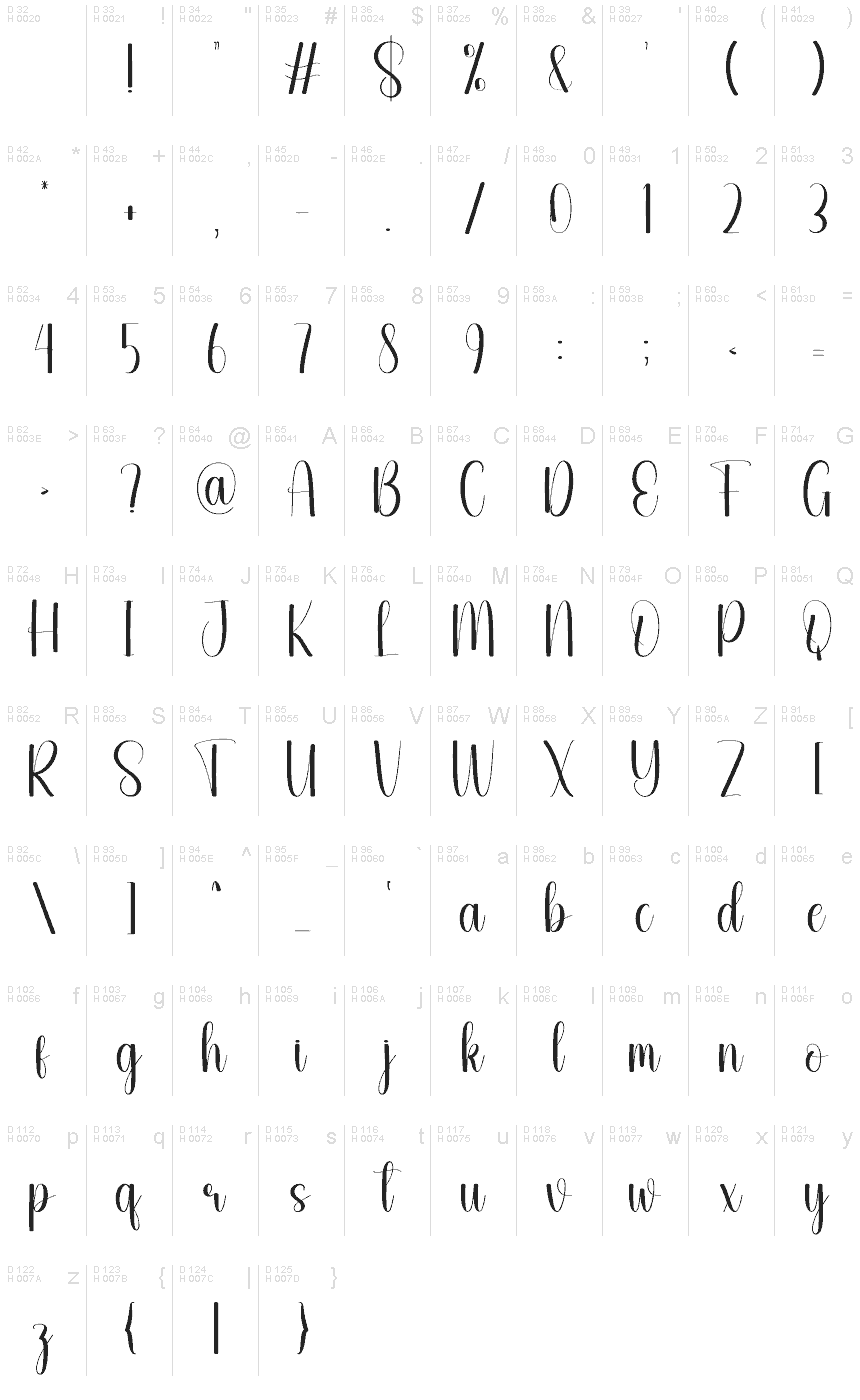
Hairdye
Hairdye font by Andi Moz is a free calligraphy font that combines elegant, flowing, and expressive handwritten elements. Its modern script design with graceful curves creates a sophisticated vibe suitable for various creative projects where elegance and class are desired.
This beautiful product can prove useful in wedding invitations, greeting cards, branding and packaging applications, apparel decorations, book covers, social media posts, posters, digital photographs or backgrounds. The ways to use it endless; it’s just about what your imagination allows!